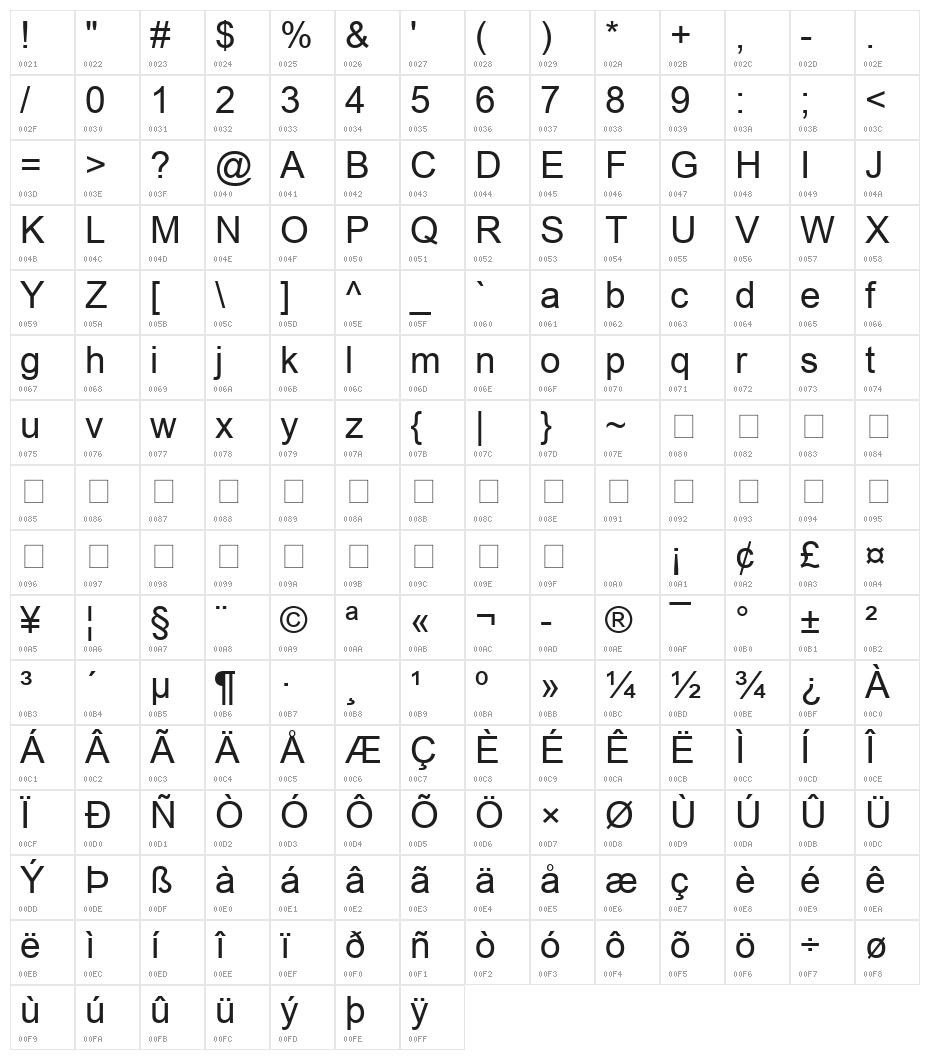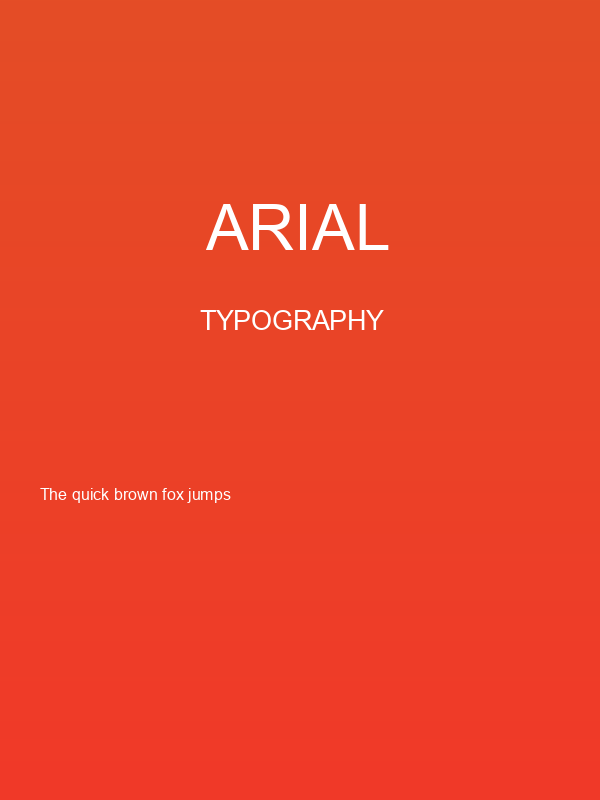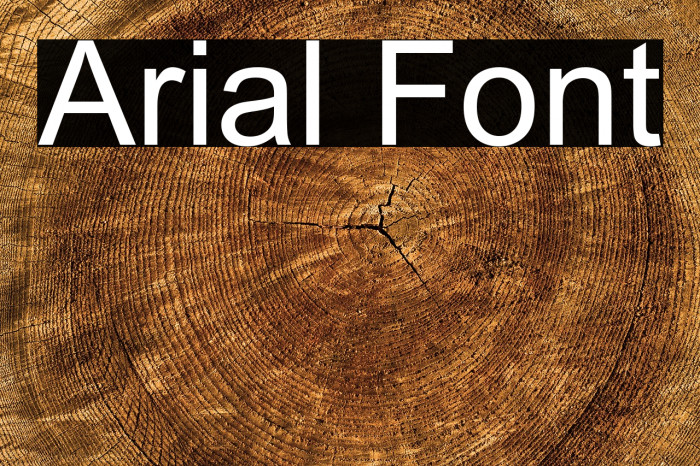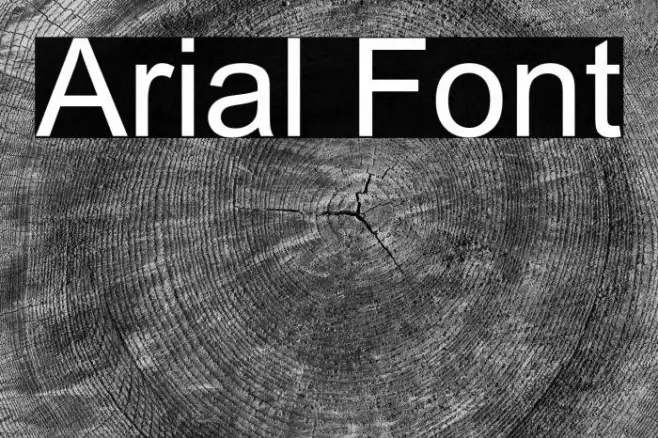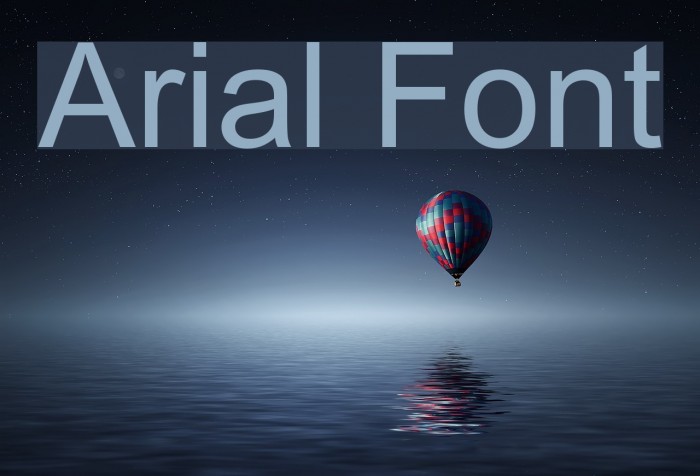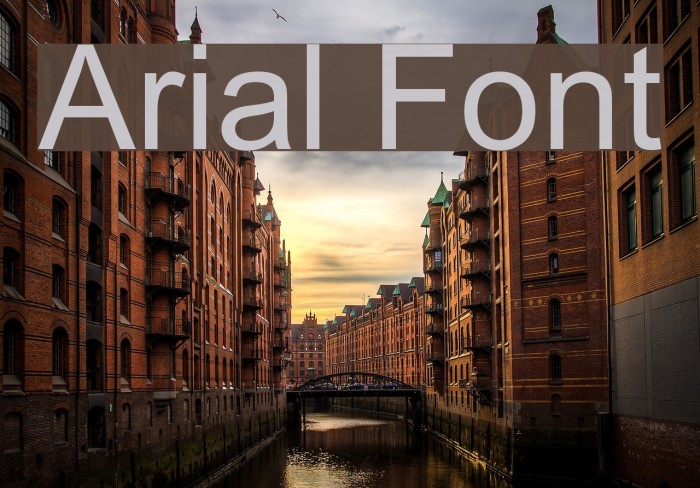
Arial Font
Arial Description
This font is a widely used sans-serif typeface known for its clean and modern appearance. It features uniform stroke widths and lacks any decorative elements, making it highly legible and versatile. The characters are well-proportioned, with a slightly condensed appearance that allows for efficient use of space. The design is straightforward and functional, suitable for a variety of applications. Its simplicity and clarity make it a popular choice for both digital and print media, ensuring readability across different sizes and resolutions.
| Proposed Projects | Ideal for web design, corporate branding, user interfaces, and signage due to its clarity and versatility. |